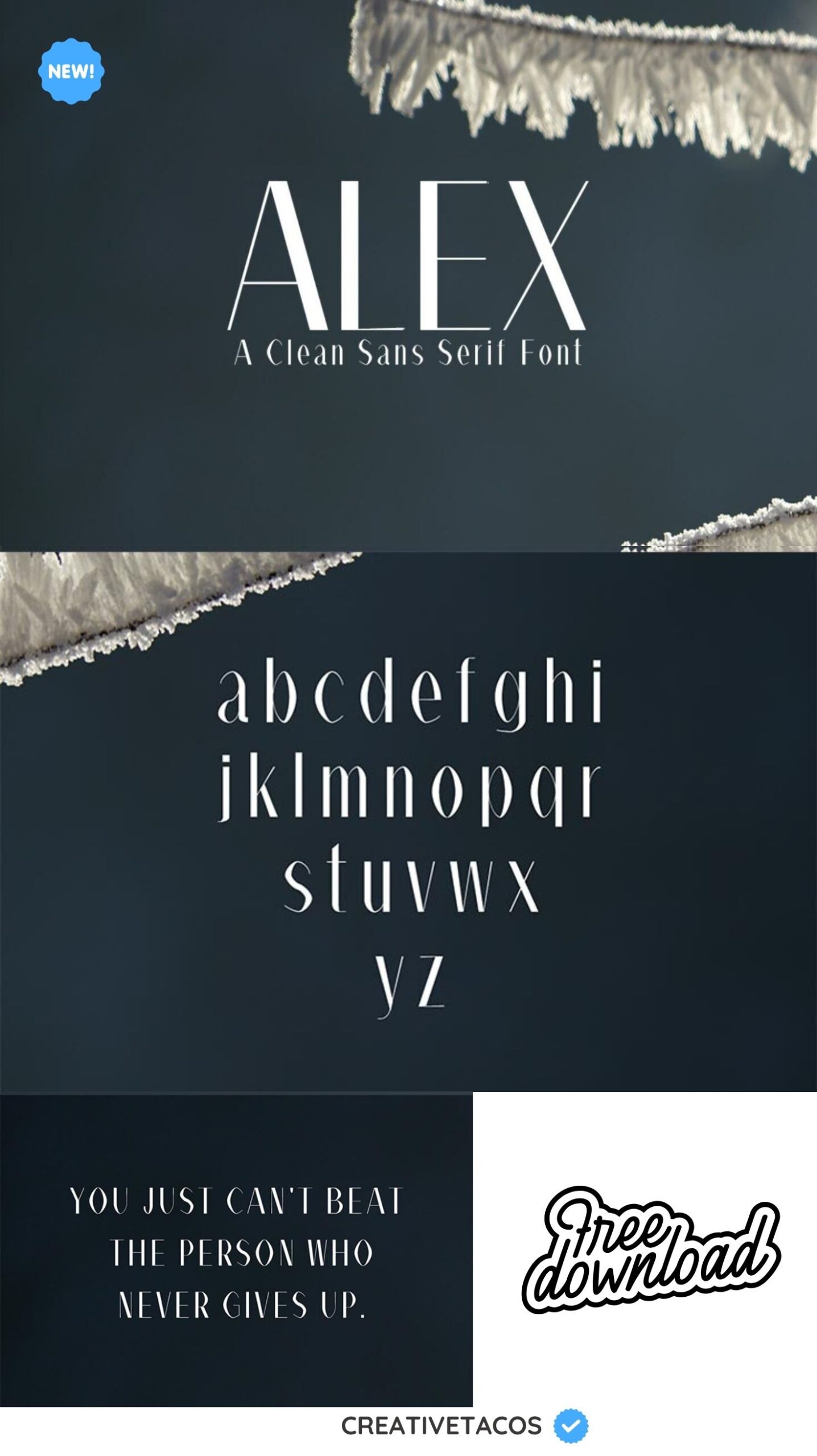
Alex Sans Serif Font
Alex Sans Serif Font is the unique and cool fashion sans serif font for creating elegant headlines, fashion magazine covers, book covers, templates and creative displays and logo designs.
It pairs well with other handwritten, script, serif and sans-serif fonts and features multiple weights.